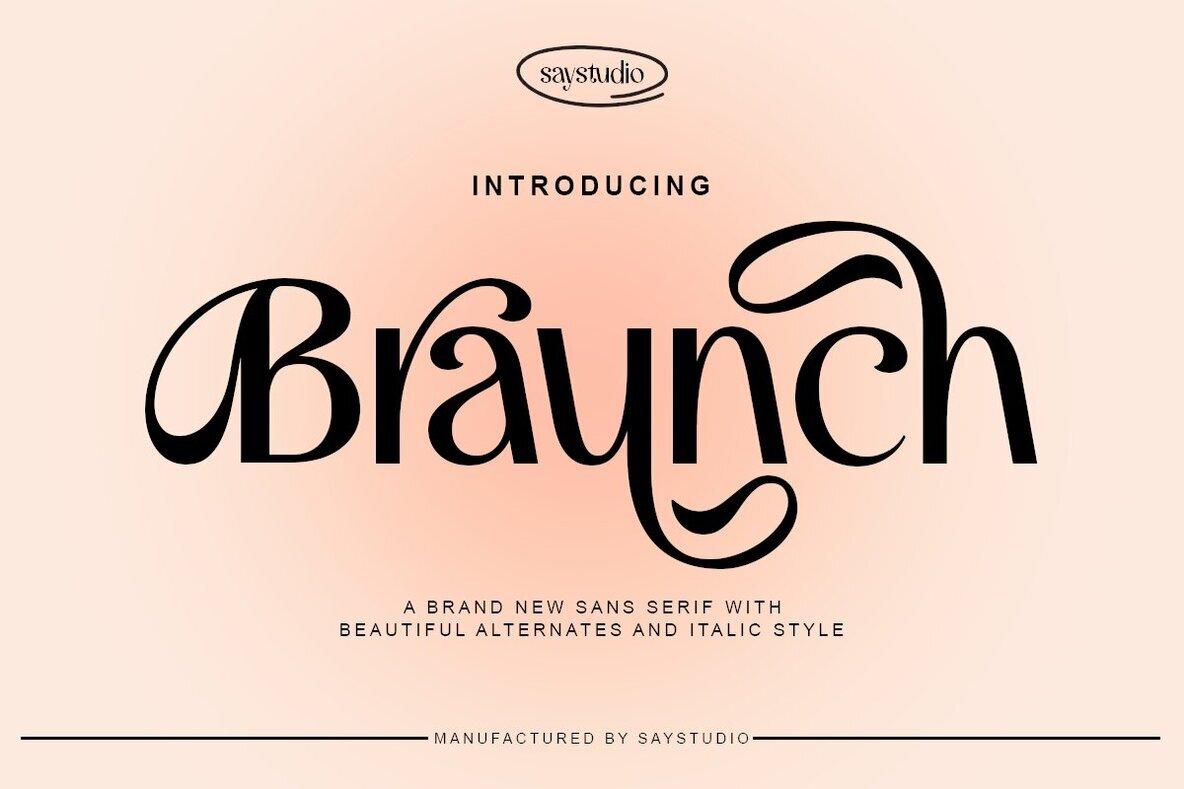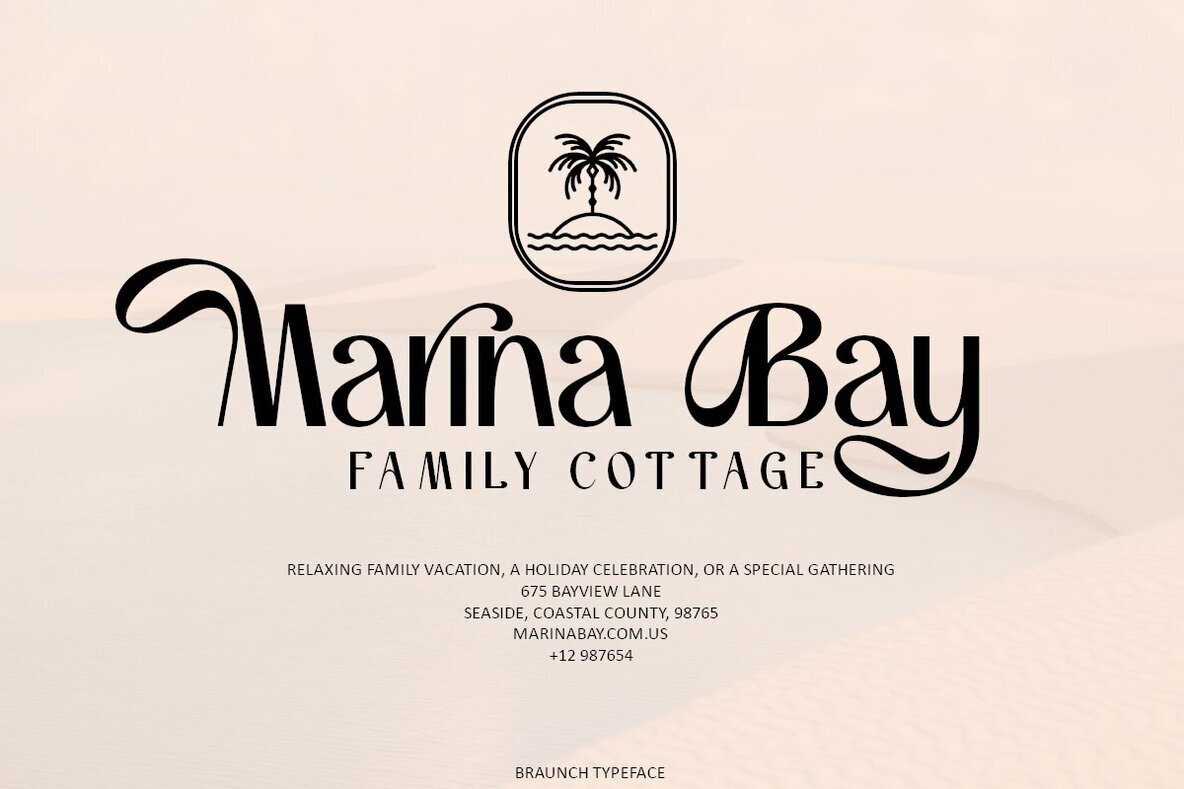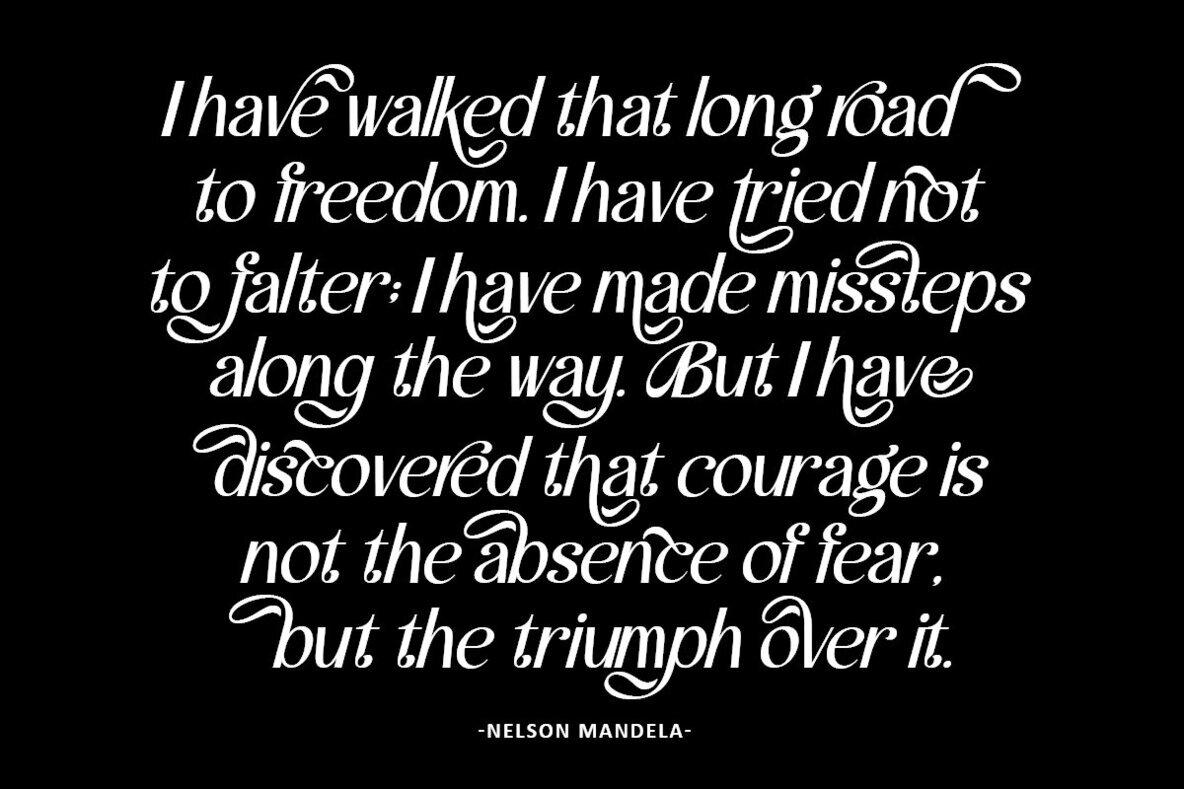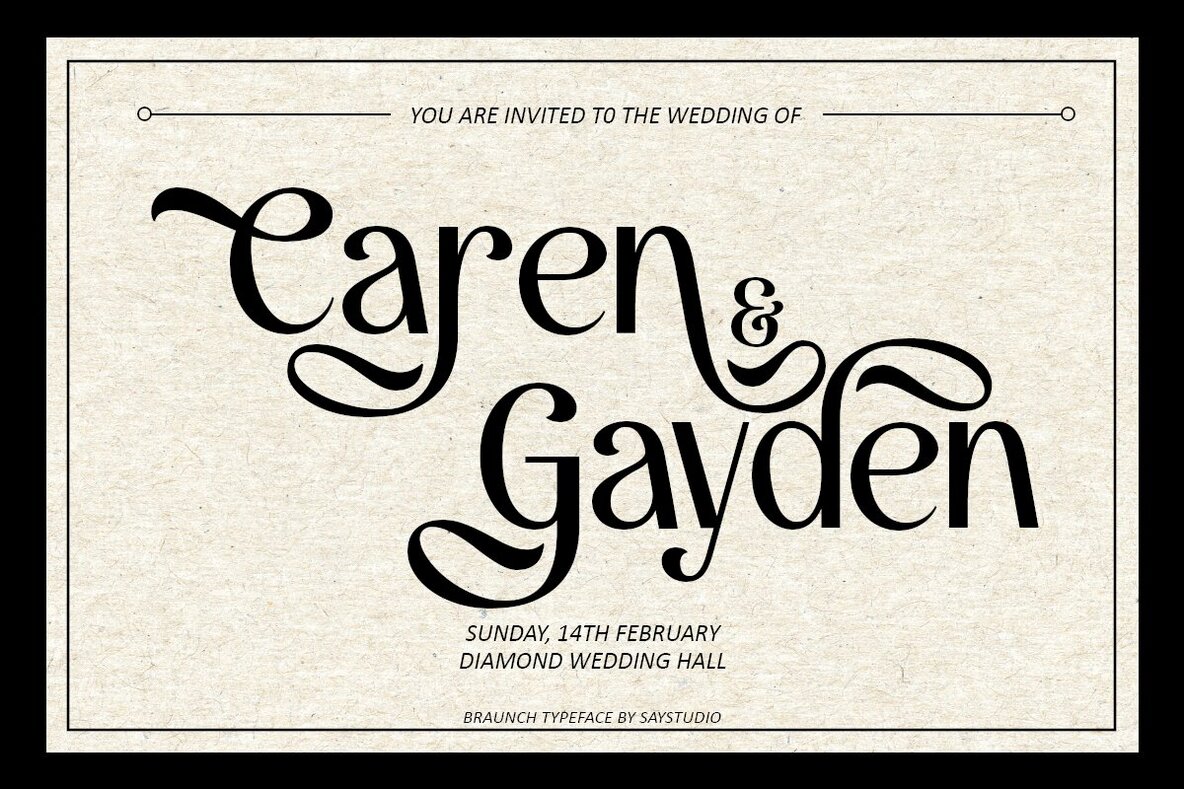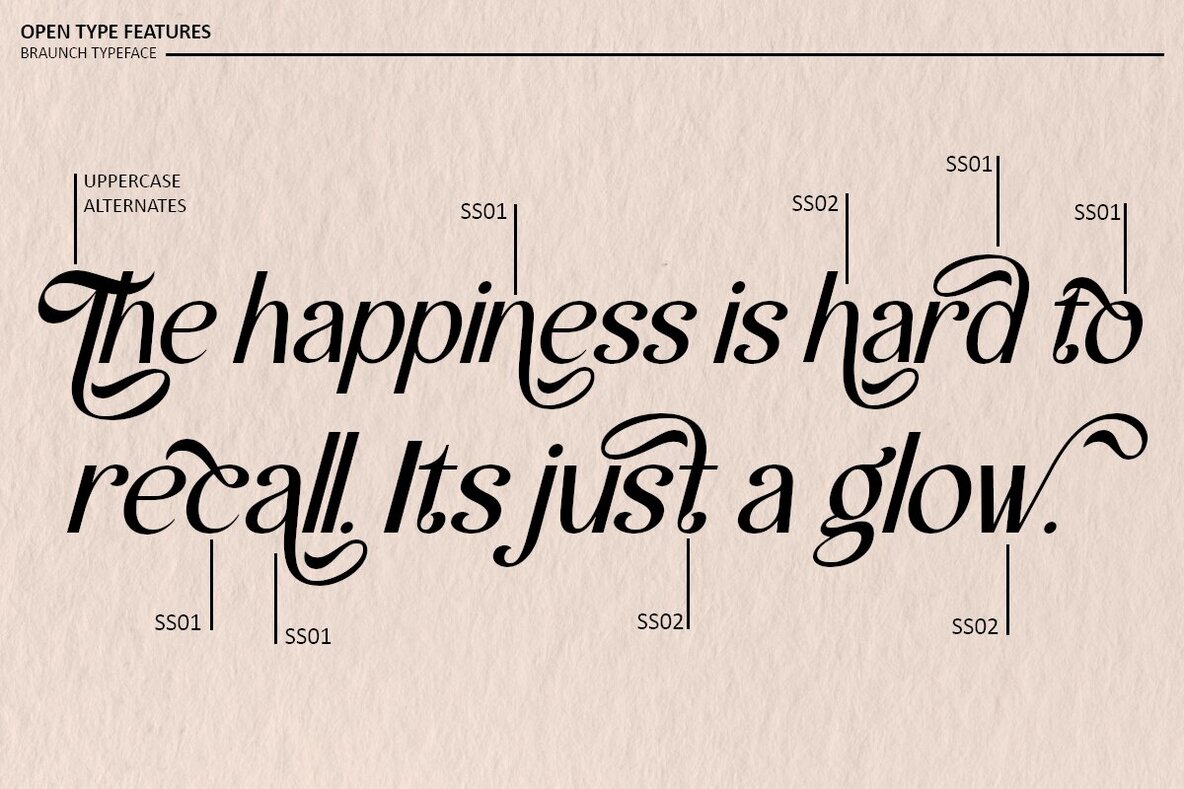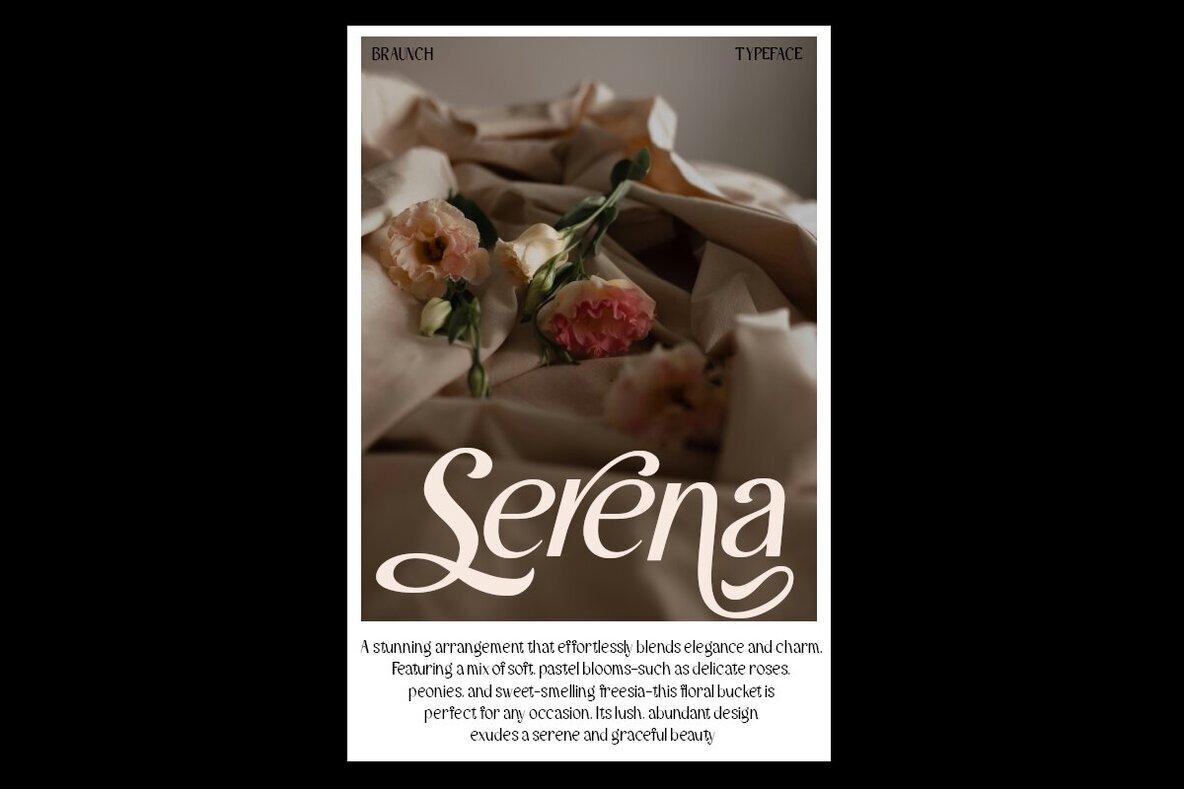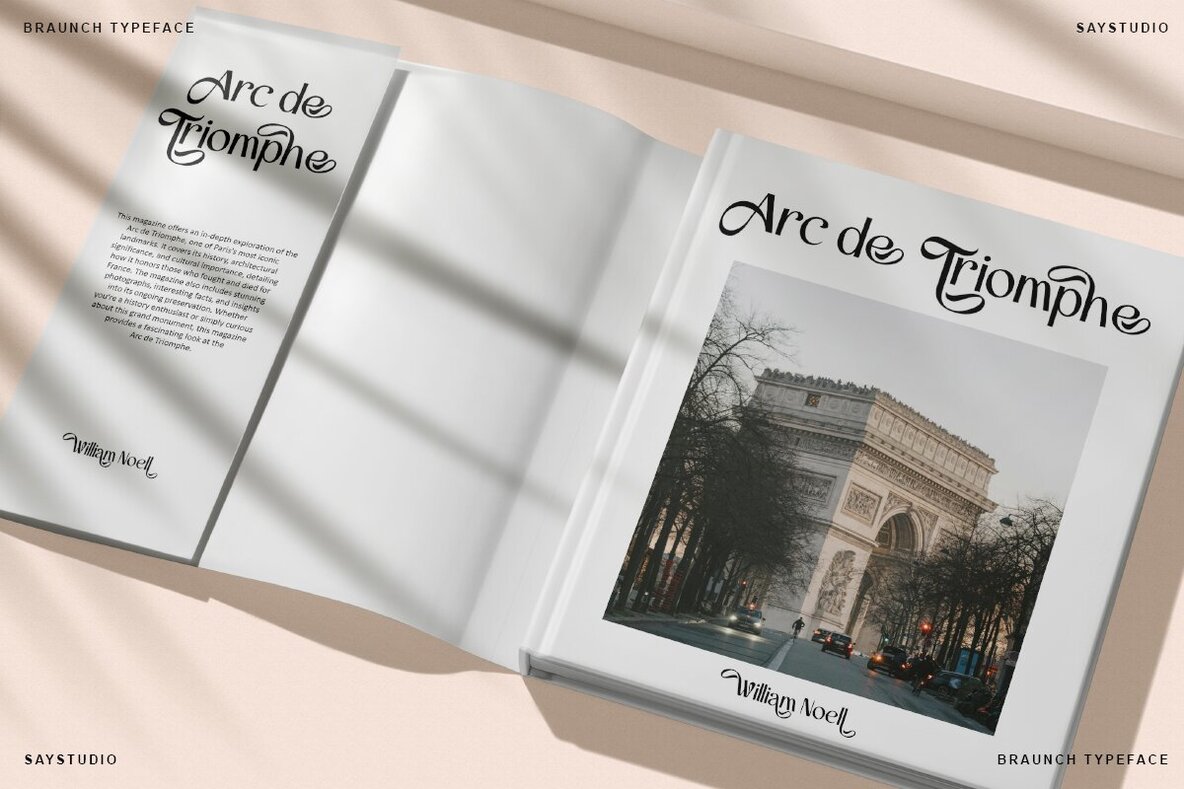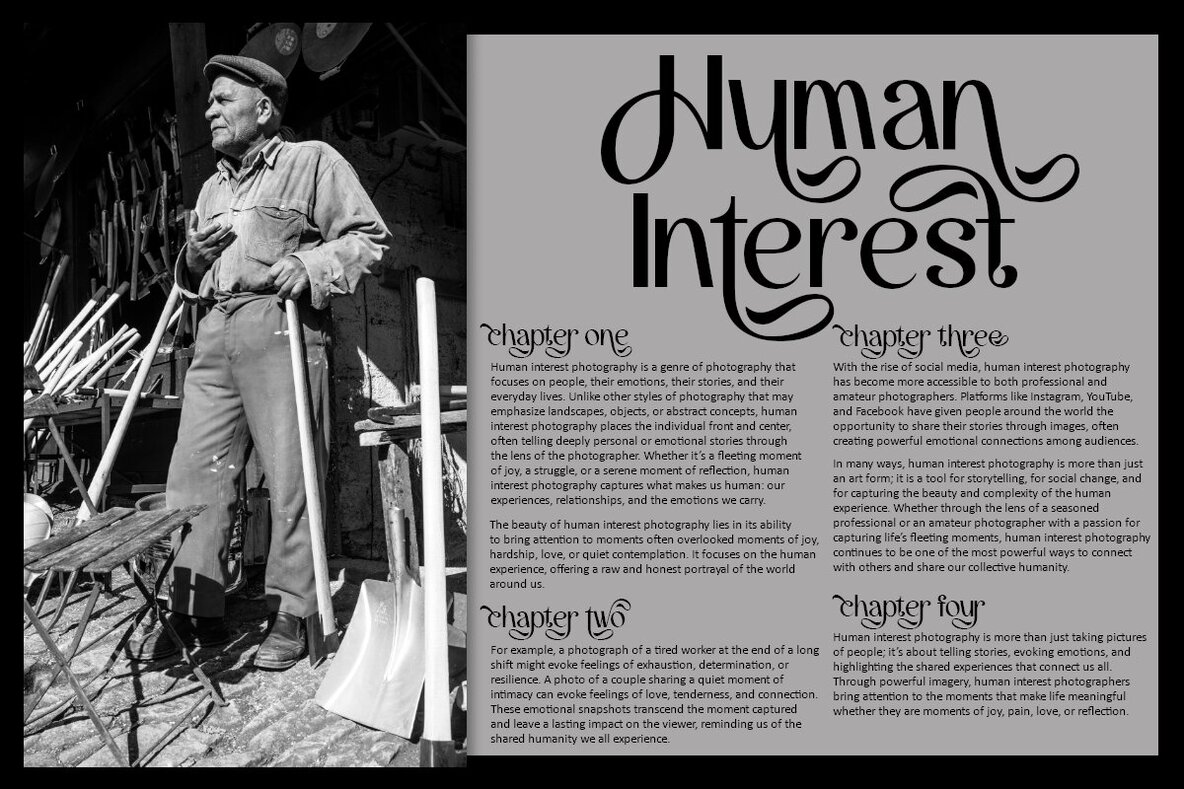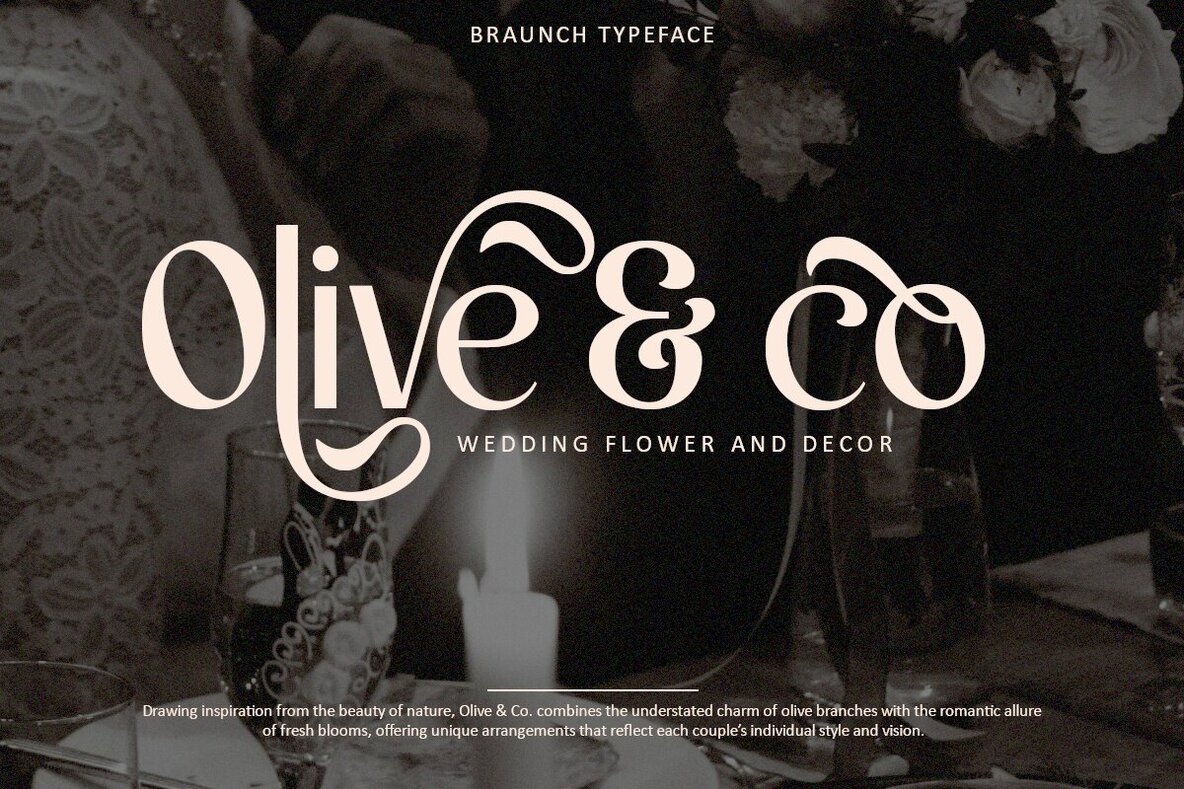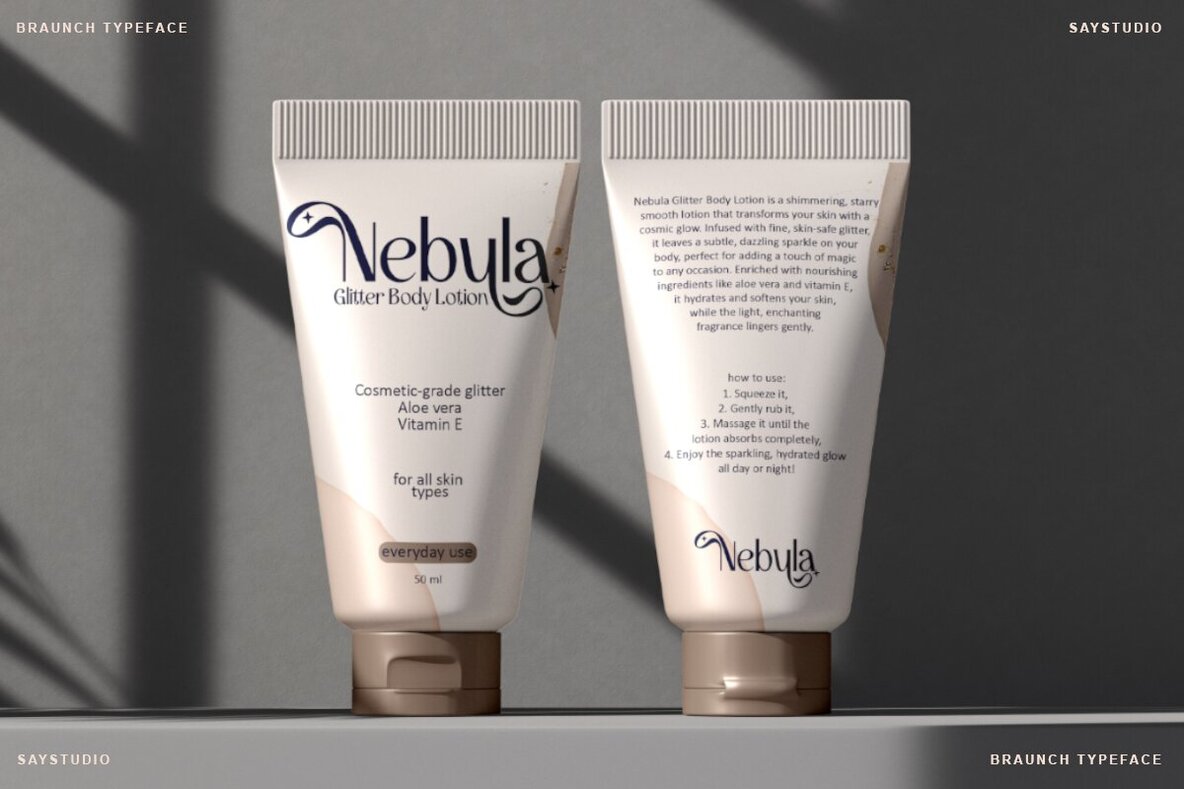
Braunch Font
Braunch is a sans serif font that combines luxury and elegance with a modern edge. Its unique typeface and character alternates make it perfect for adding a sophisticated touch to posters, magazines, and print designs. The font's clean lines and contemporary style are ideal for projects seeking a luxurious and cool aesthetic.
The Braunch package includes both Regular and Italic styles, offering versatility for various design needs. With over 70 alternates, designers can explore creative typography options and customize their projects further. Additionally, Braunch provides multilingual support, making it suitable for a wide range of languages and ensuring your message reaches a global audience.